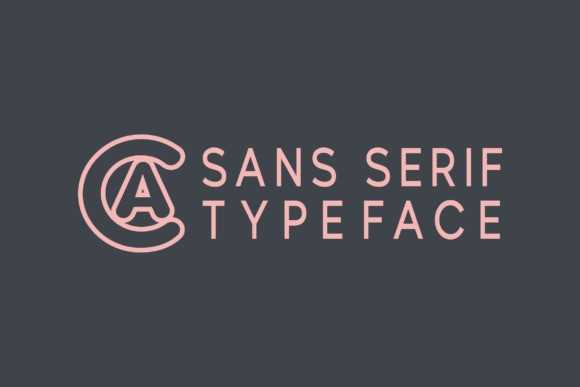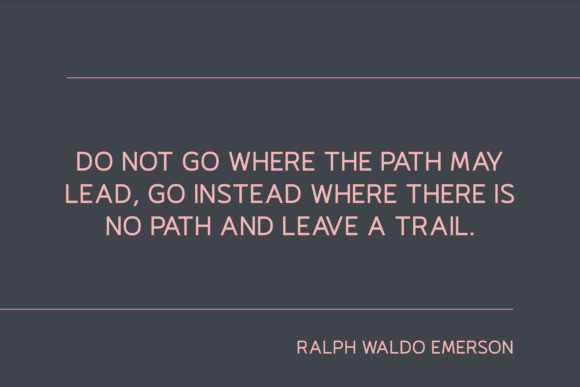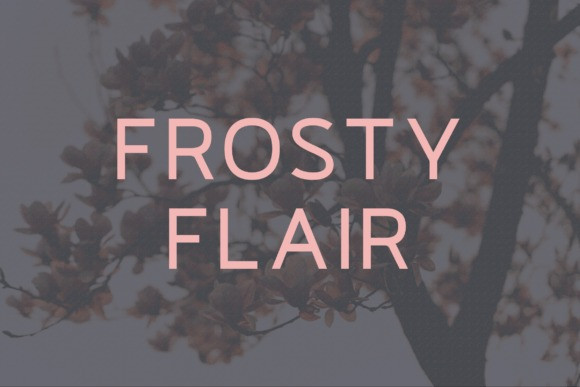
Frosty Flair Font
Frosty Flair Font, a modern, classy sans serif typeface. A sans serif typeface that contains upper characters, number 0-9 and a range of punctuation and symbols. An extremely versatile font, perfect for logos, weddings, invitations, quotes, advertisements, print, magazines, and more!